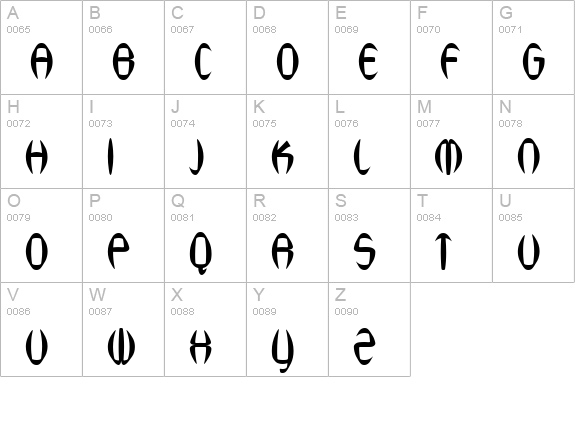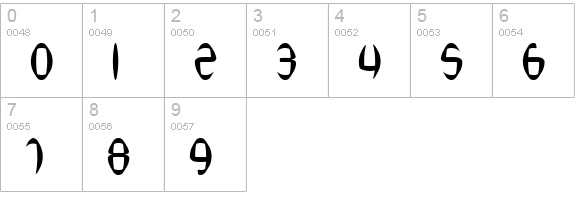
SF Synthonic Pop Font Details
SF Synthonic Pop font is a mesmerizing display of artistic brilliance, meticulously crafted to captivate and inspire. This contemporary typeface effortlessly combines the futuristic essence of science fiction with the harmonious tones of melodic pop, creating a unique and enchanting visual experience. With its sleek and streamlined letterforms, SF Synthonic Pop font exudes an air of sophistication and elegance. Each character is meticulously designed, with precision and attention to detail, resulting in a captivating blend of geometric shapes and fluid curves. The sharp angles and smooth lines create a harmonious balance, giving the font a distinct and modern aesthetic. The vibrant and energetic nature of SF Synthonic Pop font makes it perfect for a wide range of creative projects. Whether you're designing album covers, posters, or websites, this font will bring your vision to life with its dynamic and eye-catching presence. Its versatility allows it to seamlessly adapt to any project, adding a touch of futuristic flair and style. One of the best aspects of SF Synthonic Pop font is that it is freely available to download at FontsMarket.com. This means that you can unleash your creativity without any constraints, and bring your artistic visions to life without any limitations. The accessibility of this font allows designers, artists, and enthusiasts alike to explore new possibilities and push the boundaries of their creative endeavors. SF Synthonic Pop font is not merely a typeface, but a true work of art that has the power to evoke emotions and captivate audiences. Its fusion of science fiction and pop culture elements creates a truly unique and engaging visual experience. Whether you're a professional designer or a passionate hobbyist, this font will elevate your projects to new heights and leave a lasting impression on anyone who encounters it. So, if you're looking to add a touch of futuristic elegance to your designs, look no further than SF Synthonic Pop font. Download it for free at FontsMarket.com and embark on a creative journey that knows no bounds. Unleash your imagination, embrace innovation, and let this font be your guide to a world where design knows no limits.